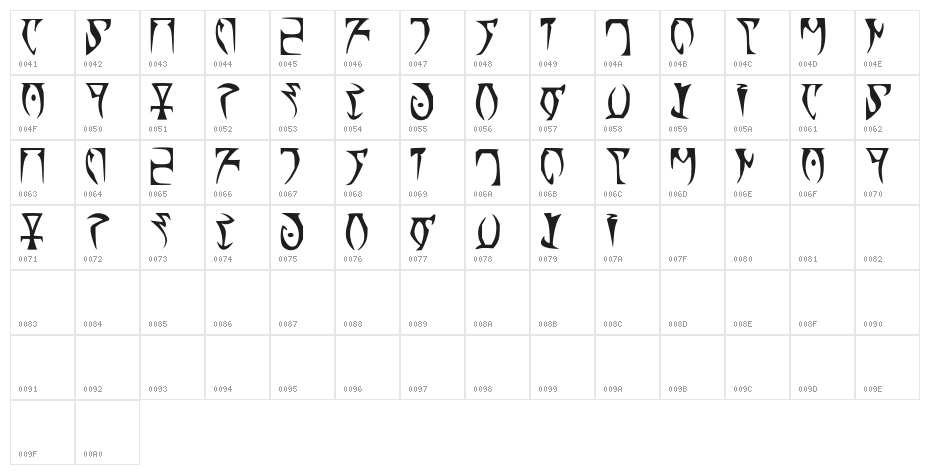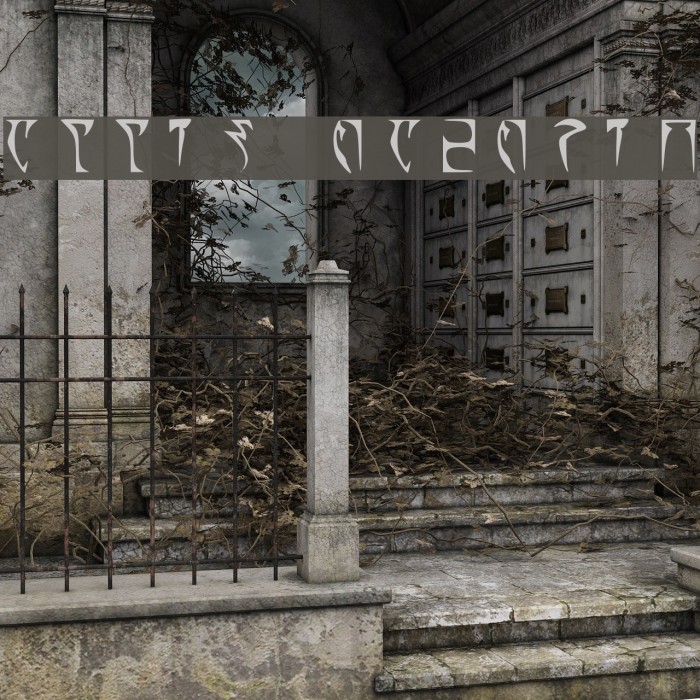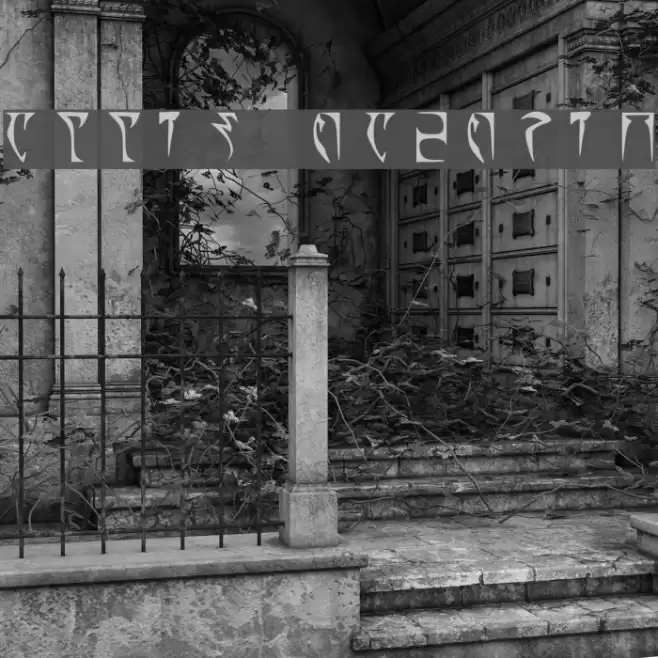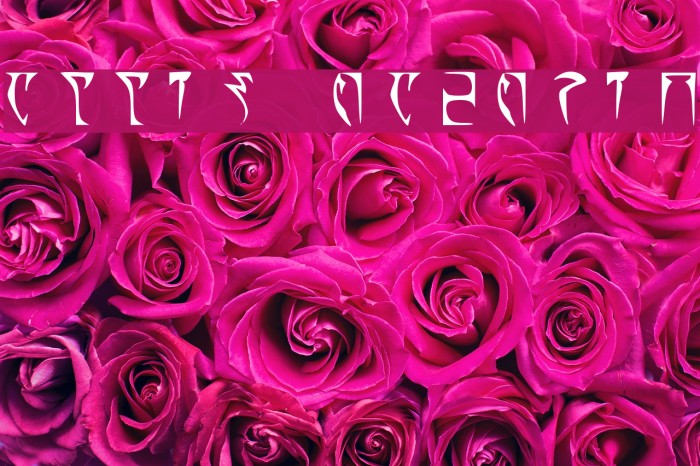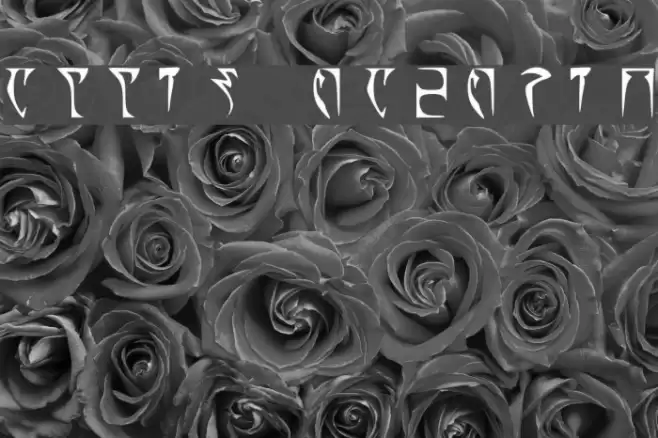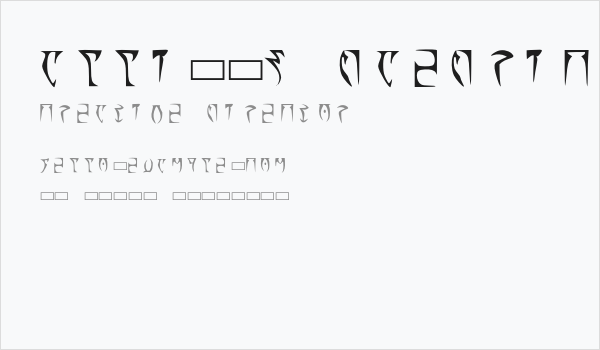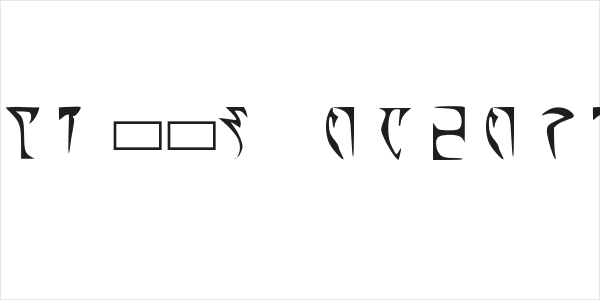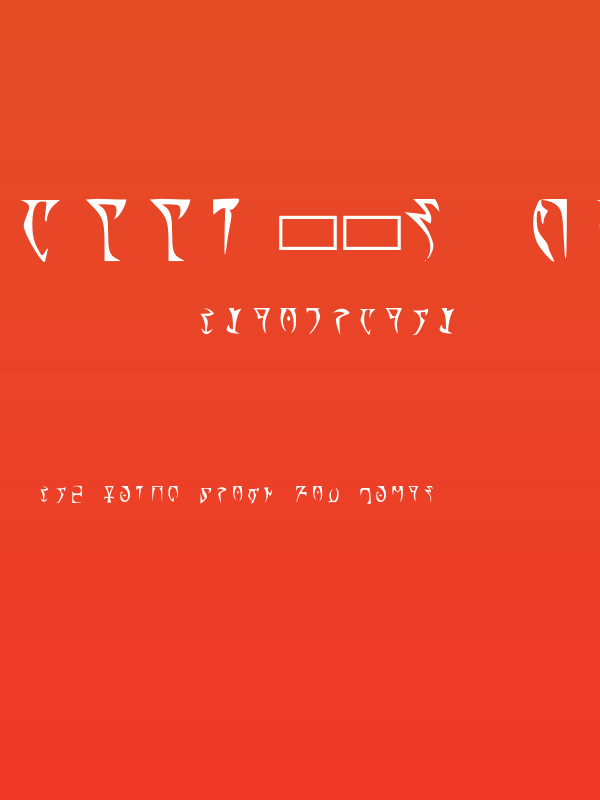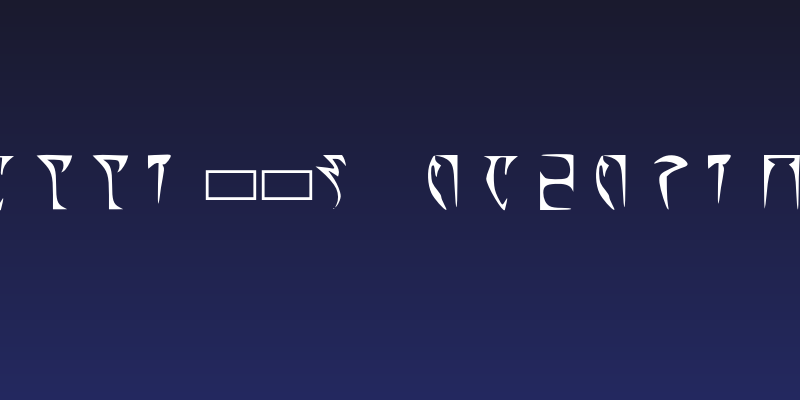
Alli's Daedric Font
Alli's Daedric Description
This font features a unique and mystical design, reminiscent of ancient runes or symbols. Each character is crafted with sharp, angular lines and curves that evoke a sense of mystery and otherworldliness. The style is highly decorative, with an emphasis on bold, striking shapes that stand out. The characters are evenly spaced, providing a balanced and cohesive look. This font is ideal for projects that require a touch of fantasy or a magical theme, making it perfect for game design, book covers, or themed event materials.
| Overall Style | Mystical, Fantasy, Decorative |
| Use Case | Logos, Headlines, Themed Designs |
| Proposed Projects | Ideal for fantasy-themed projects, game design, book covers, and themed event materials. |